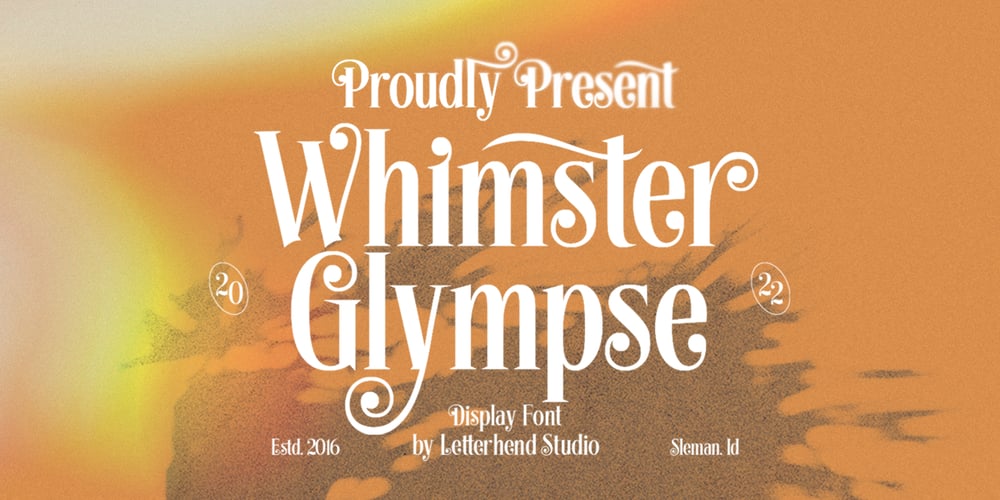
Whimster Glympse Font Family was designed by Hendry Juanda and published by Letterhend. Whimster Glympse contains 1 styles and family package options. Whimster Glimpse is a stylish display font This font has unique letterform, make it looks great to be used for vintage & elegant design theme. This font perfectly made to be applied especially in logo, and the other various formal forms such as invitations, labels, logos, magazines, books, greeting / wedding cards, packaging, fashion, make up, stationery, novels, labels or any type of advertising purpose.Features : uppercase & lowercase numbers and punctuation multilingual alternates & ligatures PUA encoded We highly recommend using a program that supports OpenType features and Glyphs panels like many of Adobe apps and Corel Draw, so you can see and access all Glyph variations.